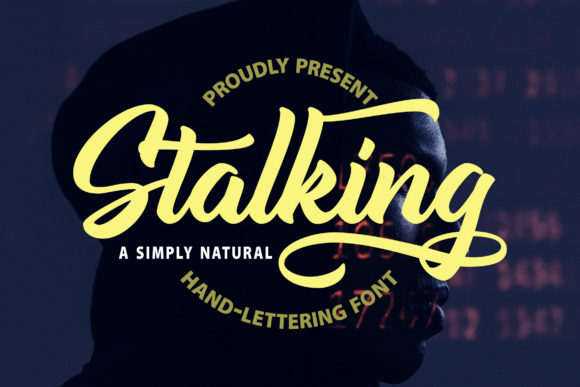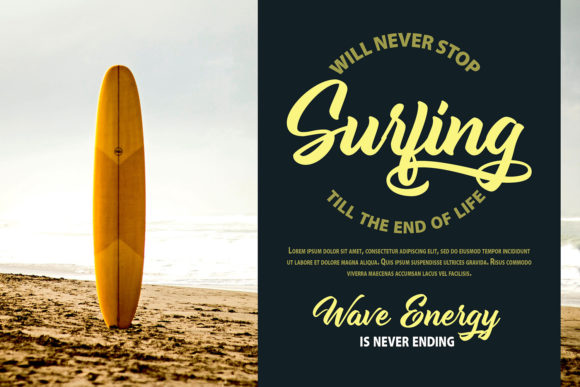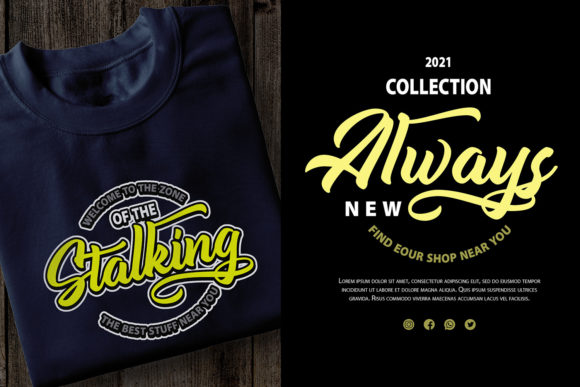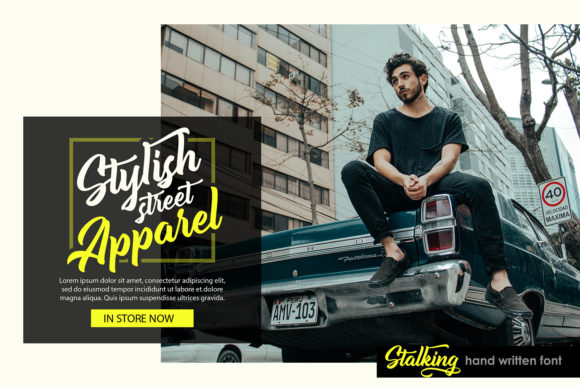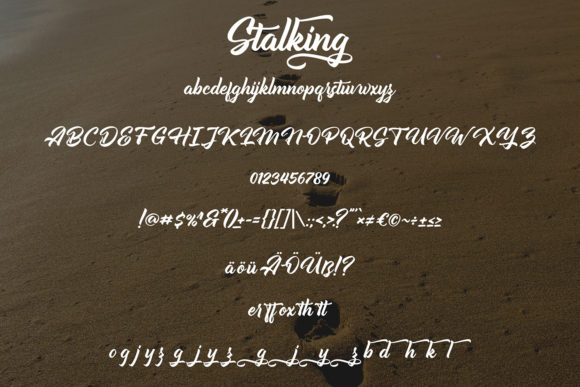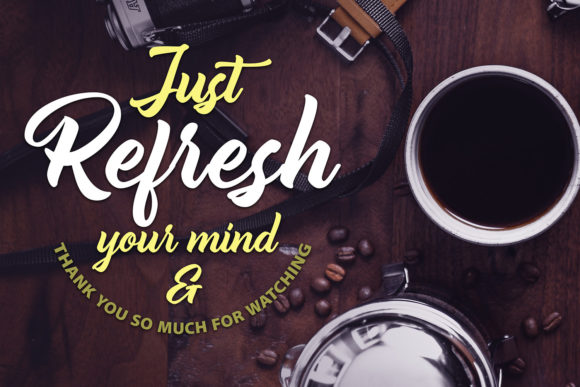
Stalking Font
About Stalking Font
Stalking is a gorgeous and bold handwritten font, crafted to give your headlines and logotype projects a stylish touch. This font is PUA encoded which means you can access all glyphs and swashes with ease!